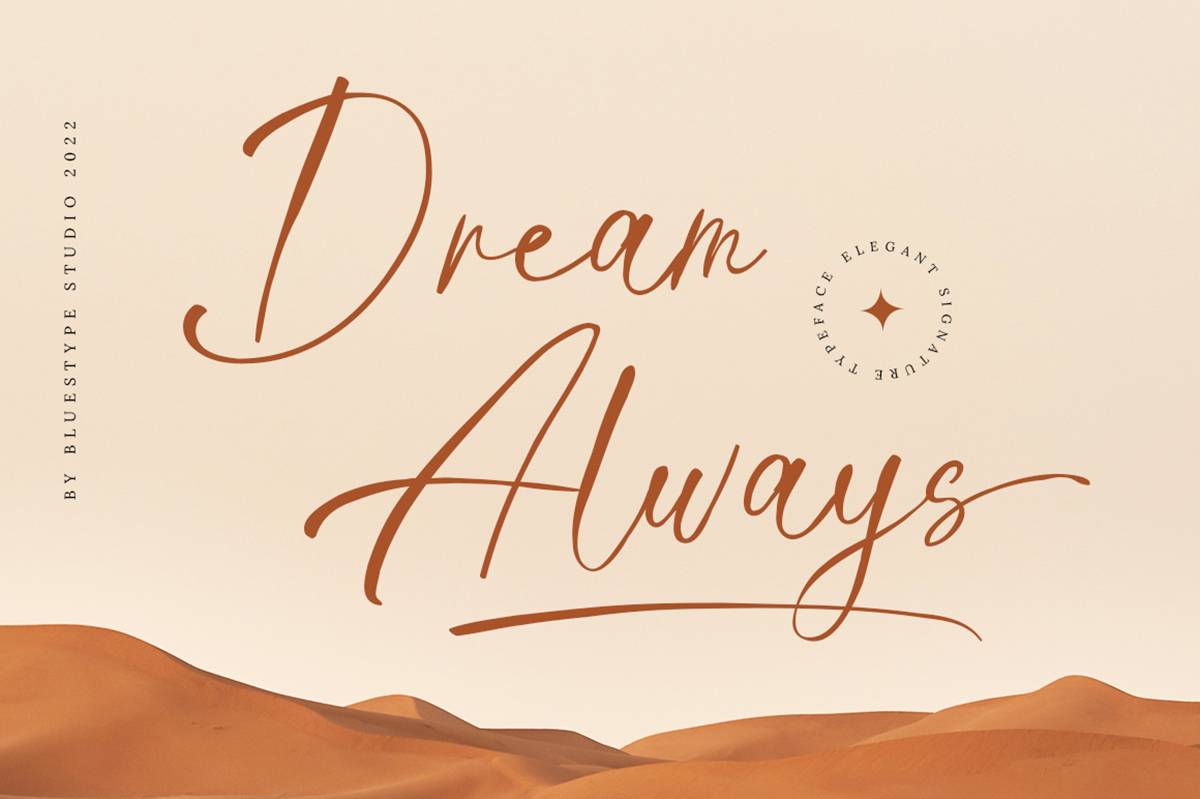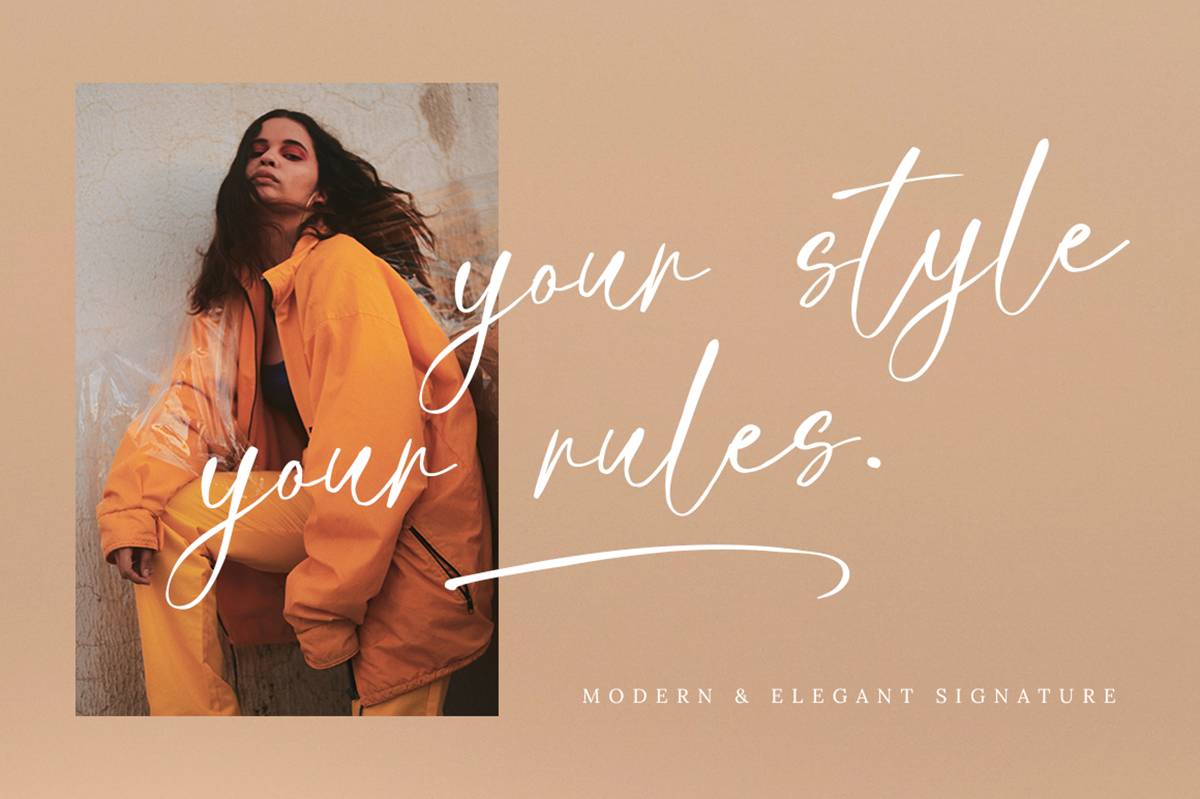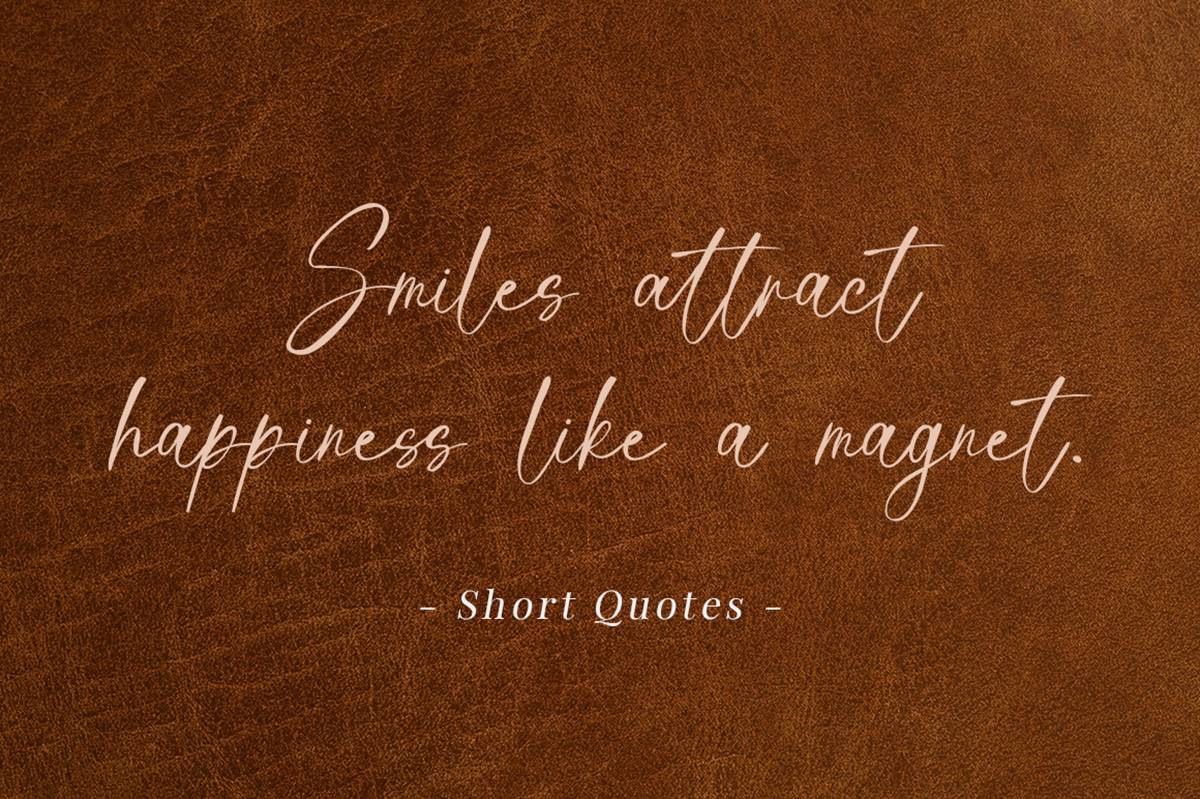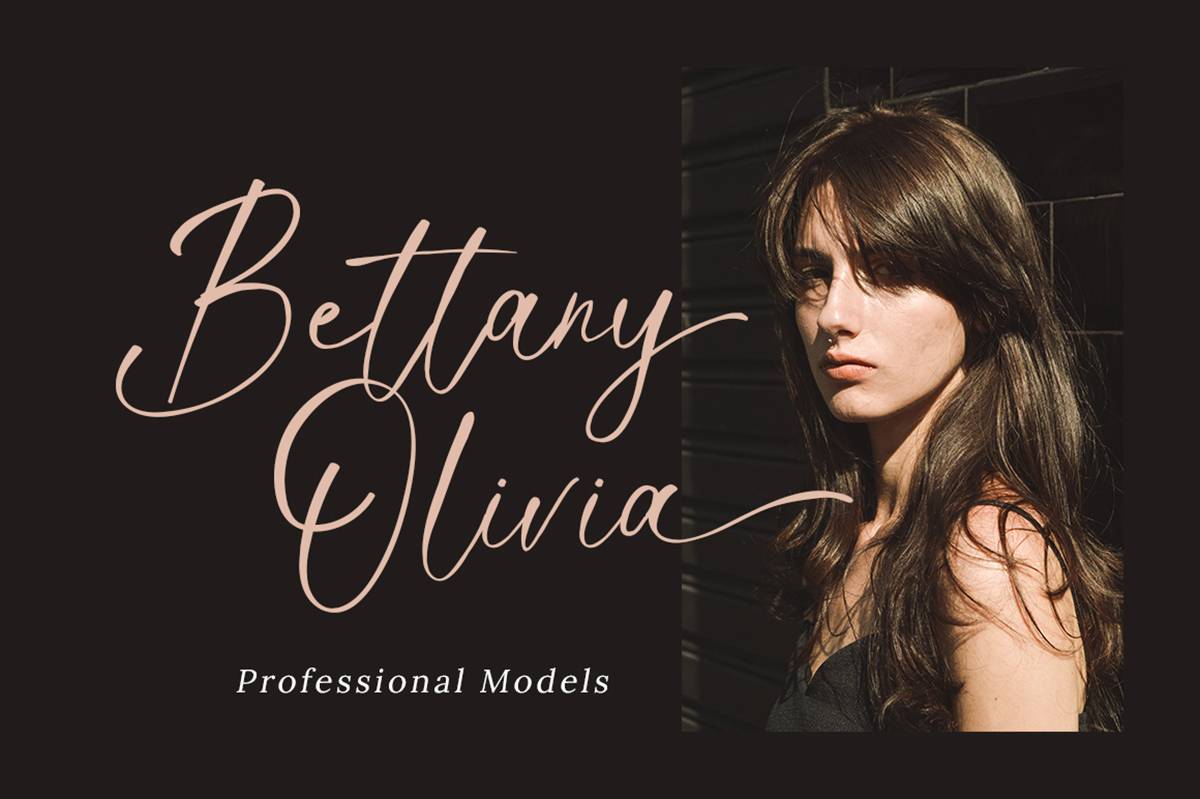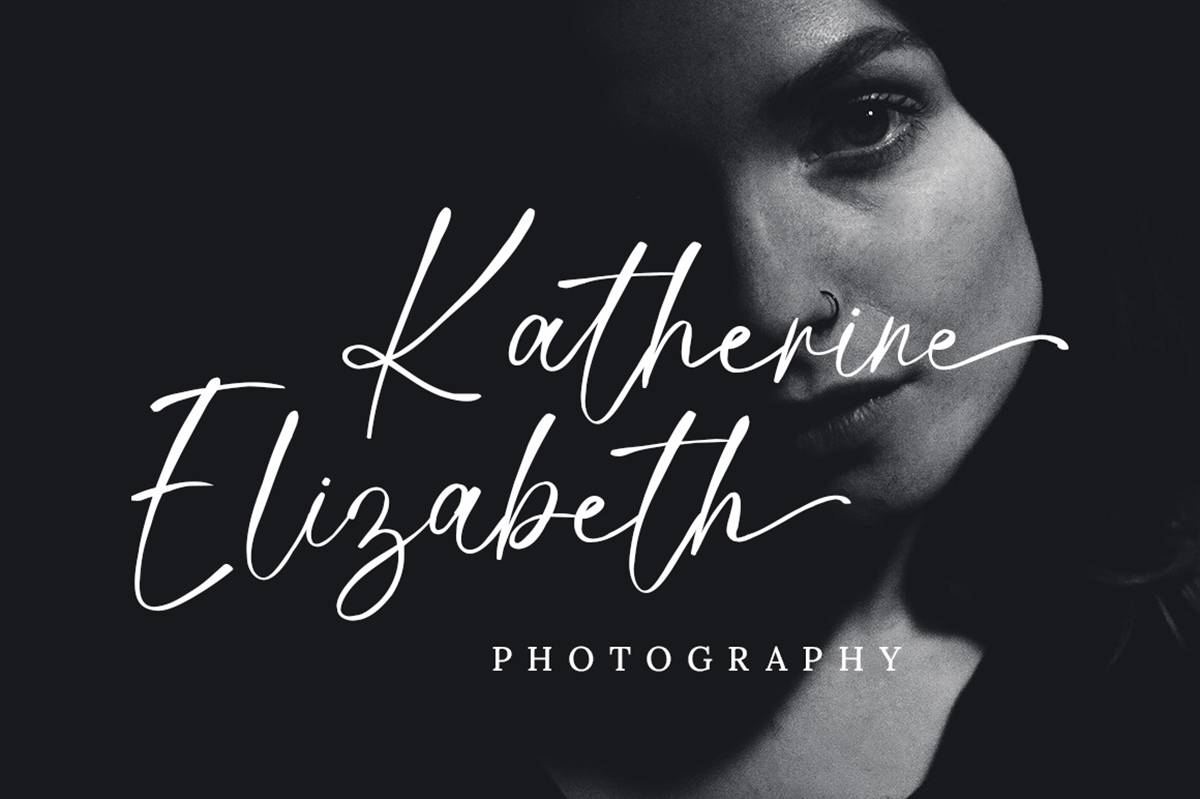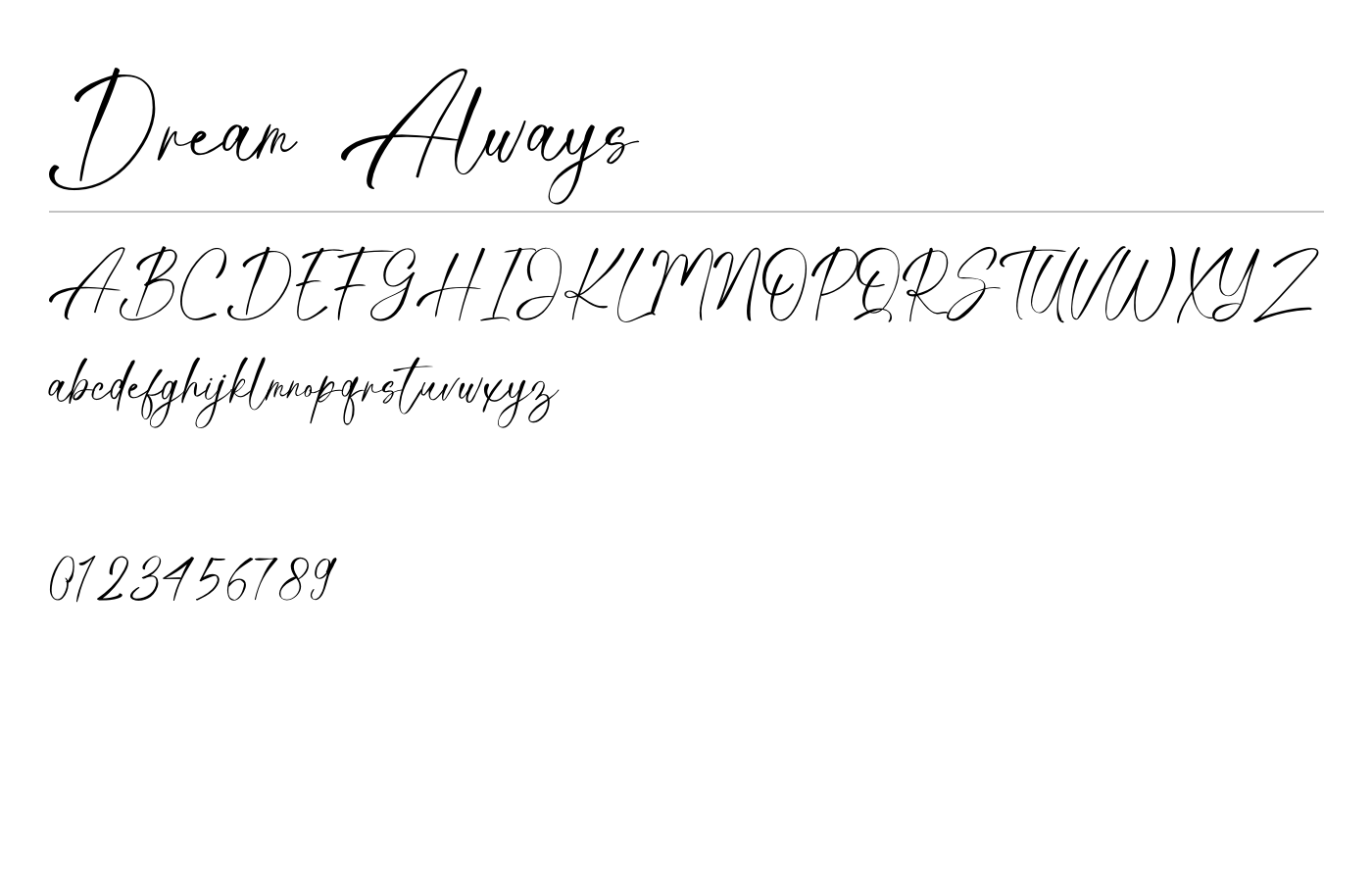
Dream Always is an elegant, flowing script font with a delicate, hand-drawn feel, characterized by slender, graceful strokes and an airy, sophisticated rhythm. Its stylish uppercase and lowercase letters, along with smooth curves and slightly varied stroke widths, make it perfect for romantic or luxury branding, invitations, and feminine editorial designs where a touch of refined personality is desired.
Dream Always Font
About Dream Always Font
| Font family | Dream Always Font |